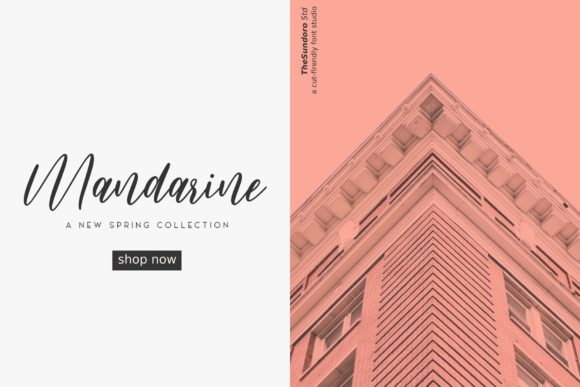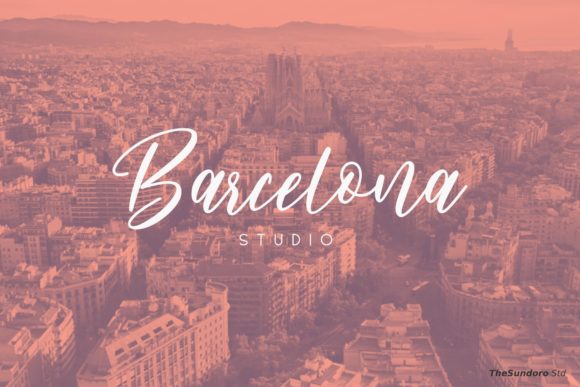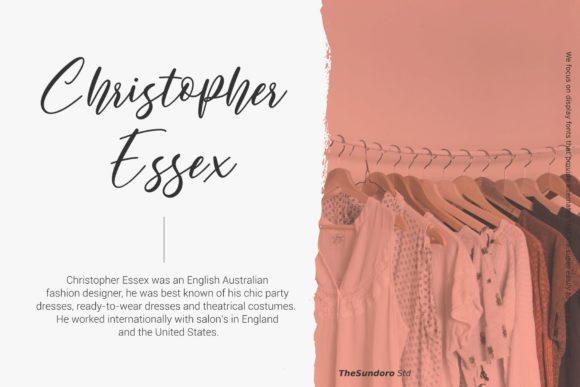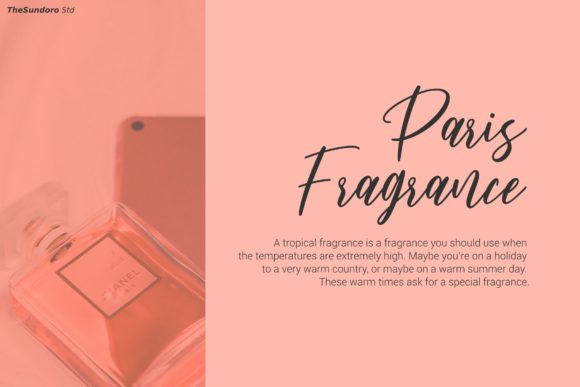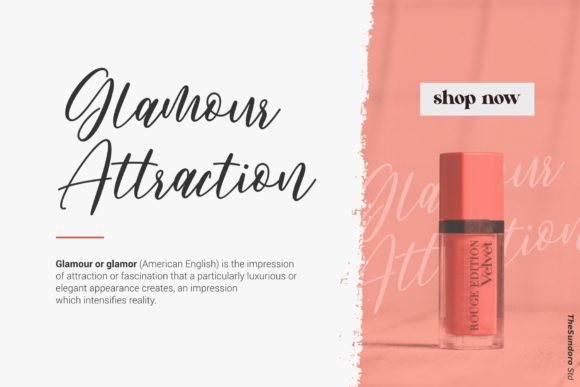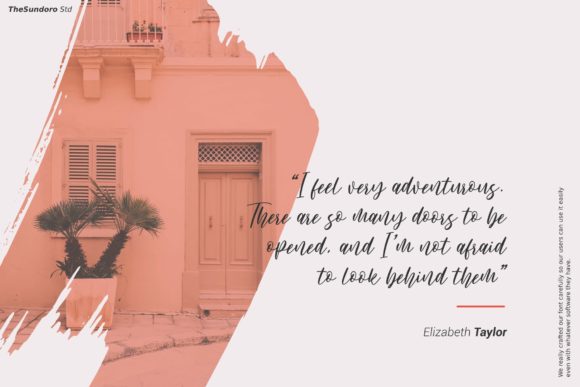
Introduction to Shalsa Bella Font
Shalsa Bella is a modern calligraphy and feels incredibly elegant and flowing.
Key Features of Shalsa Bella Font
Why Choose Shalsa Bella Font?
Shalsa Bella Font offers exceptional quality and versatility, making it a valuable addition to your design toolkit. Whether you’re creating for personal projects or commercial use, Shalsa Bella Font delivers professional results.